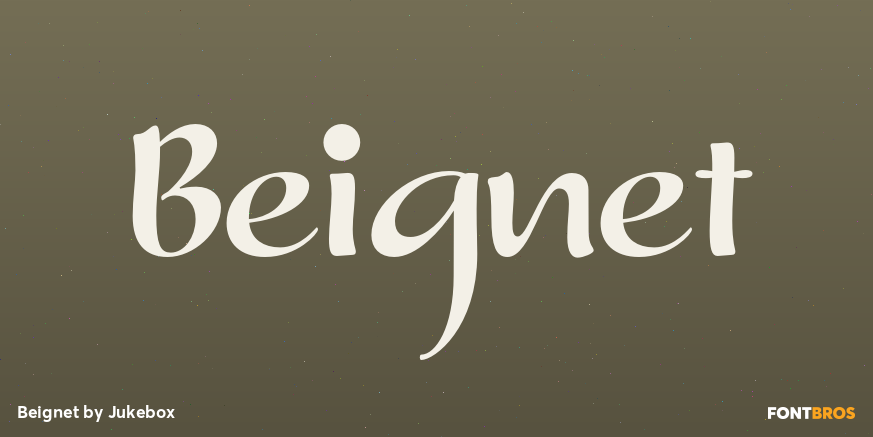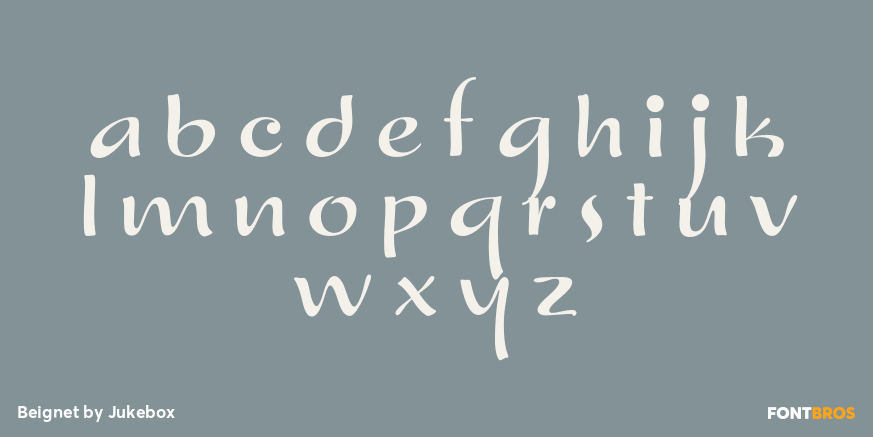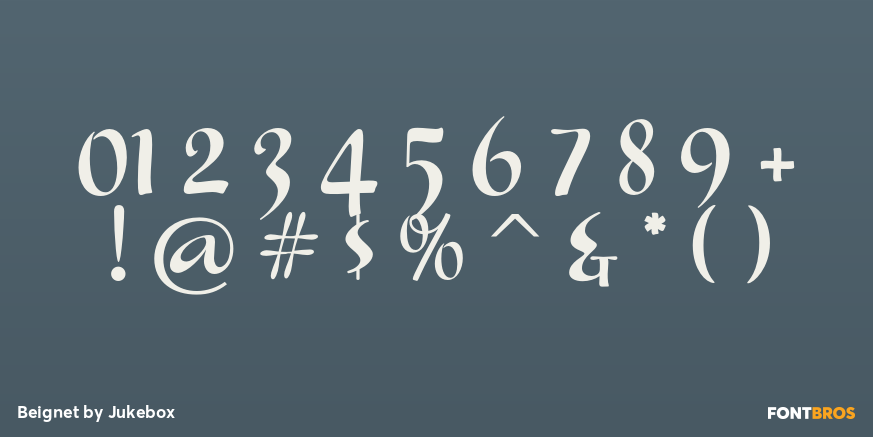
Beignet
Font Family by Jukebox
Beignet is a hand-lettered display family with a distinctly 1920s Art Deco feel. Its drawn, handwritten character gives it a lively vintage personality, while the clean structure keeps it stylish and approachable for standout type.
With 2 styles included—Regular and Heavy—this family gives you a simple range for creating contrast in titles, logos, packaging, posters, and other decorative display work. It’s especially well suited to projects that want a retro voice with a personal, crafted edge rather than a rigid geometric look.
Designed by Jukebox, Beignet is a strong choice for branding and creative layouts that call for Jazz Age flavor, hand-made charm, and confident headline presence.